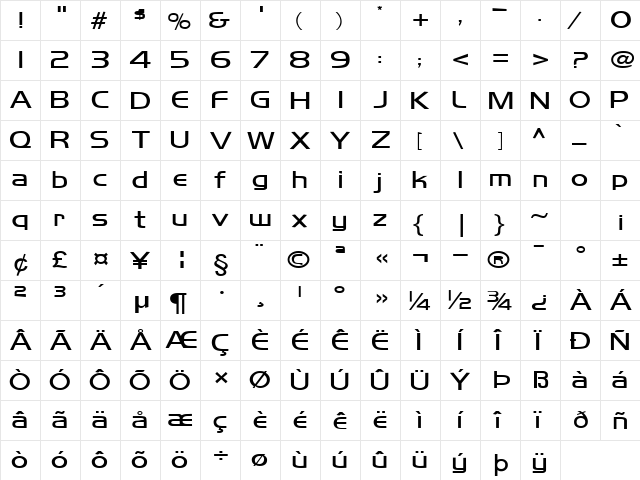
Orbit-Extended Normal
Design Context for Orbit-Extended Typeface
Orbit-Extended takes a measured approach to typography — its balanced proportions and neutral character make it a reliable workhorse for both digital and print work.